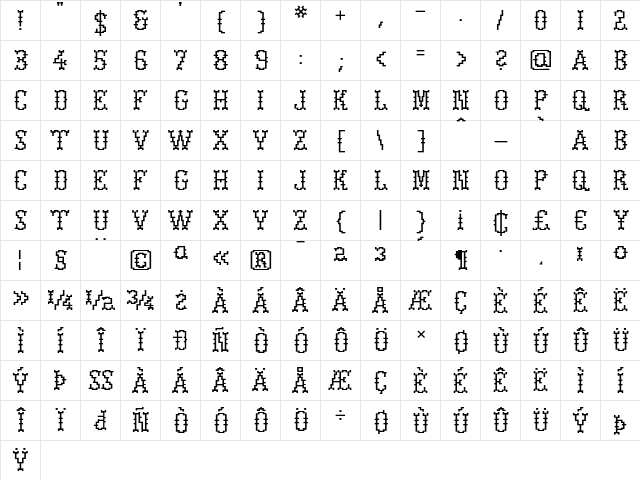
GretelStrong Light
| Foundry | FOUNTAIN/Peter Bruhn, Sweden |
| Designer | Sylvia & Daniel Janssen |
Design Context for GretelStrong Typeface
GretelStrong is a composed and adaptable typeface that performs quietly and consistently across a wide range of design contexts. Its slender proportions lend an understated elegance to any composition.